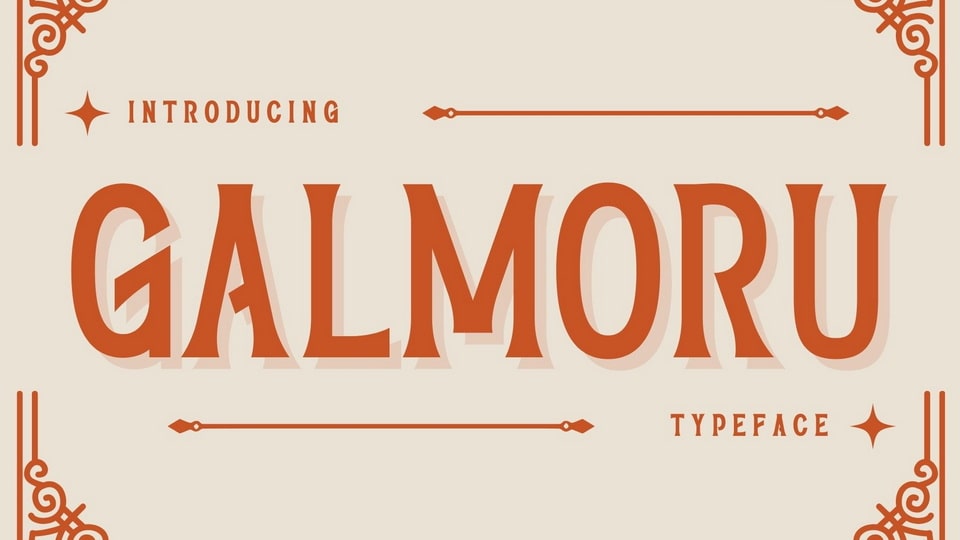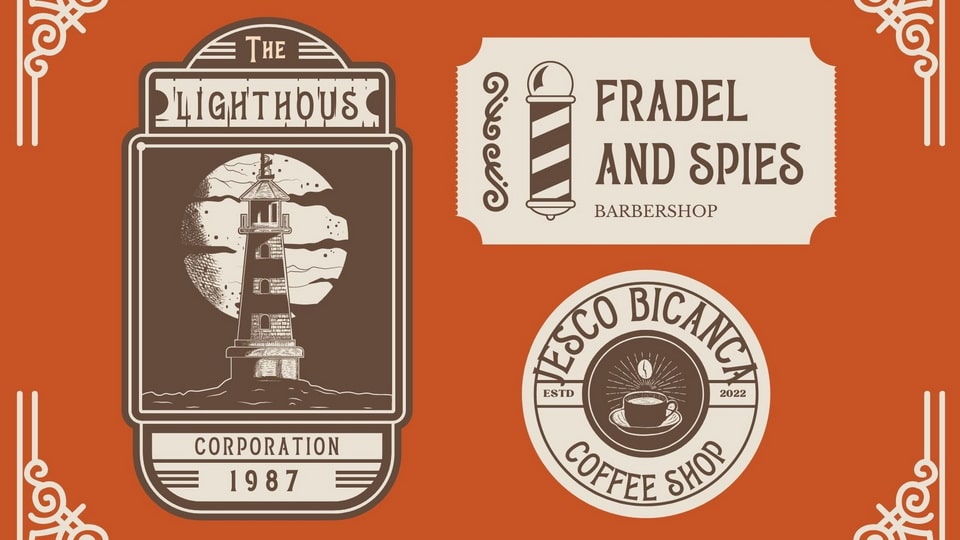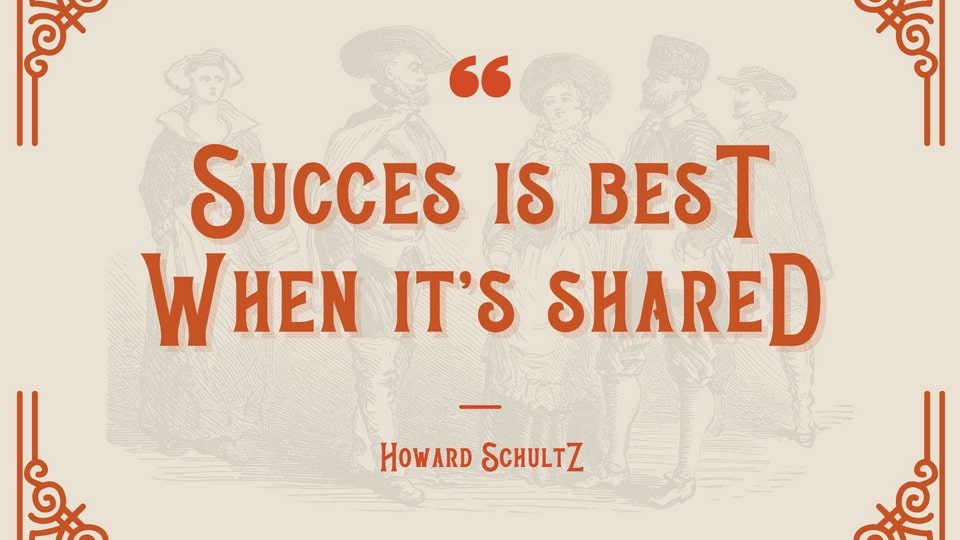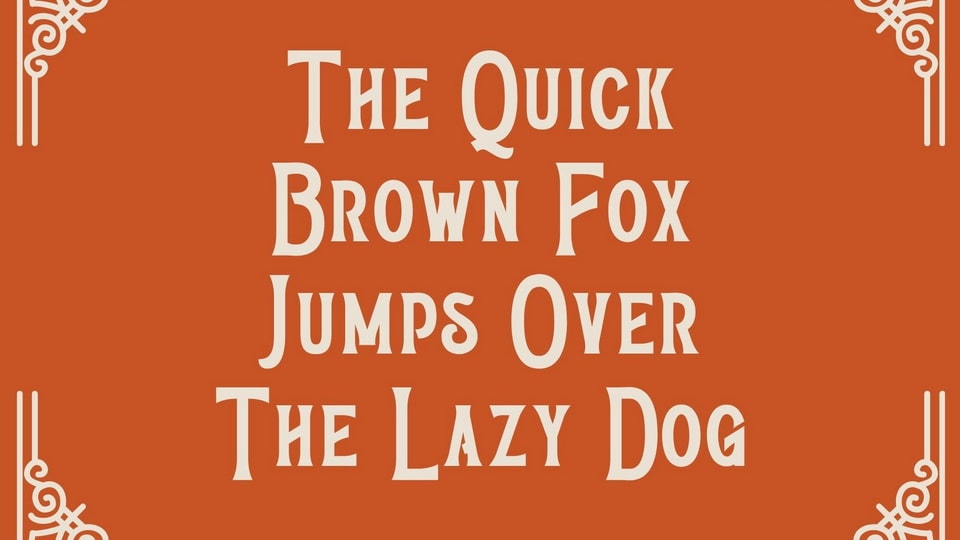
Galmoru is a vintage serif font that offers beautiful typographic harmony. The font is perfect for a diversity of design projects such as logos, branding, social media posts, advertisements, product designs, and many more.